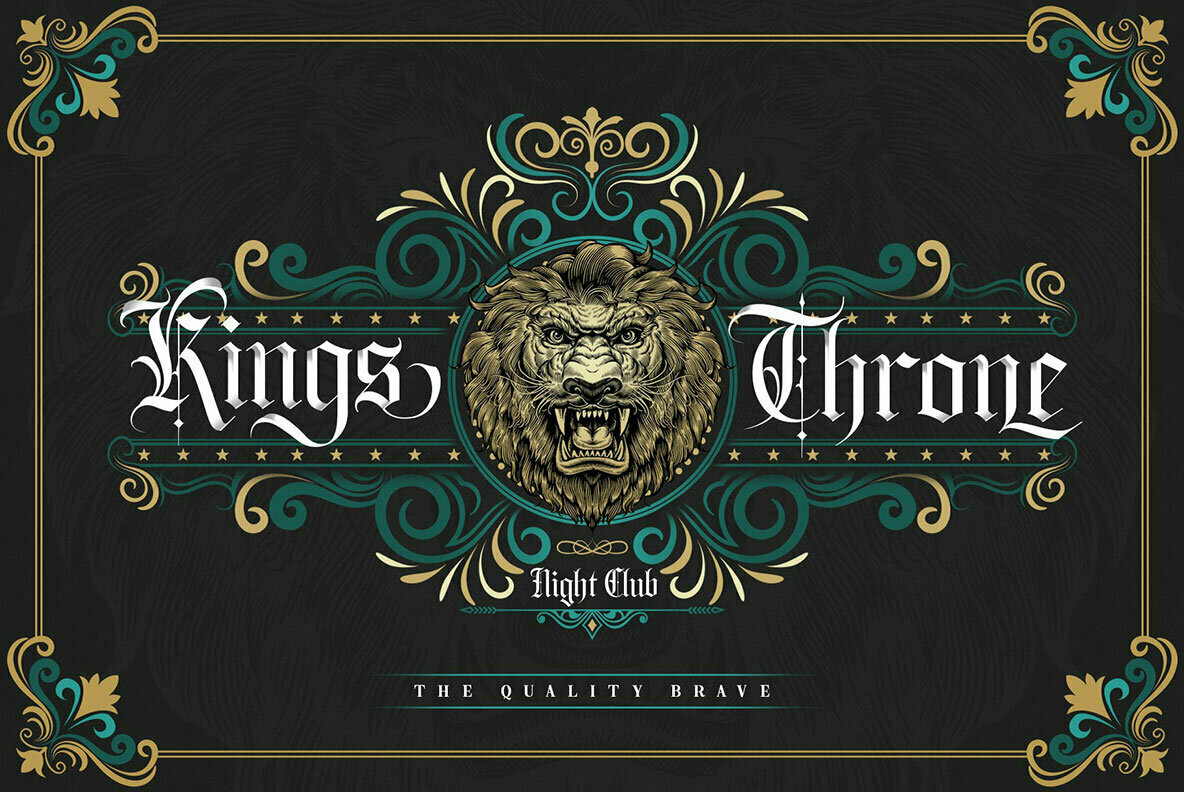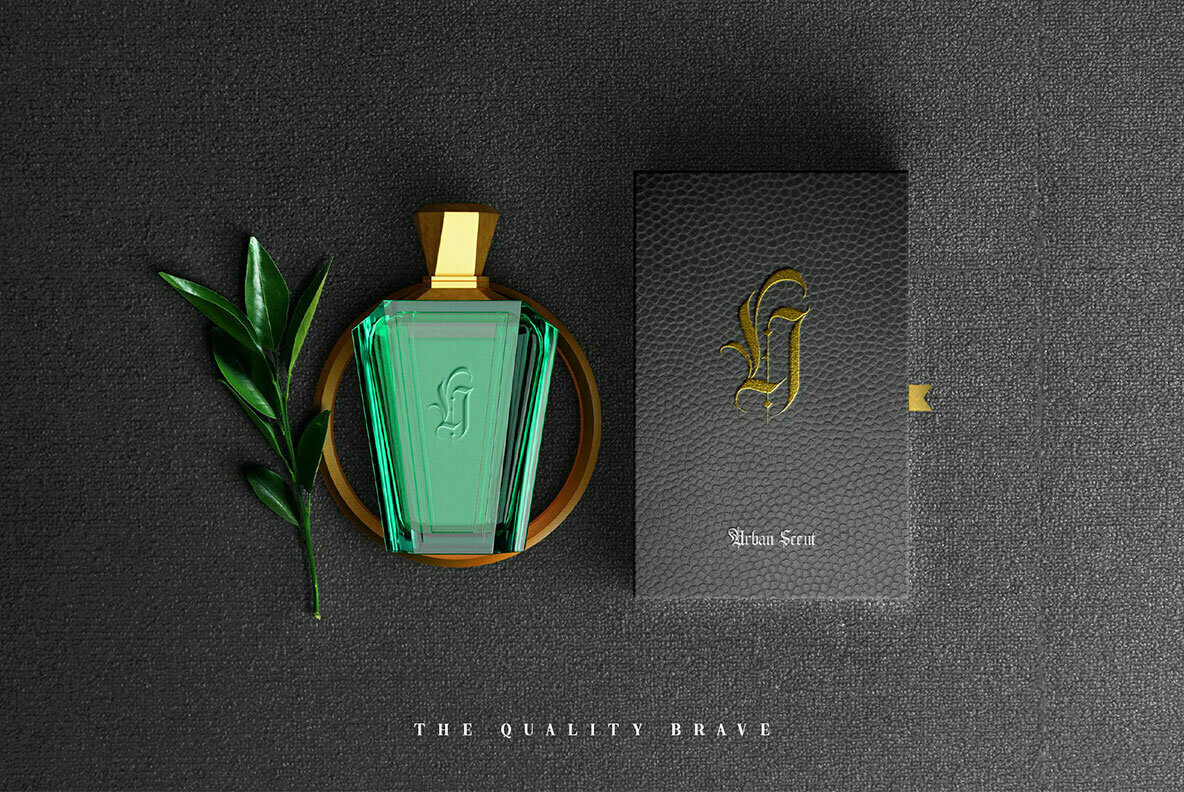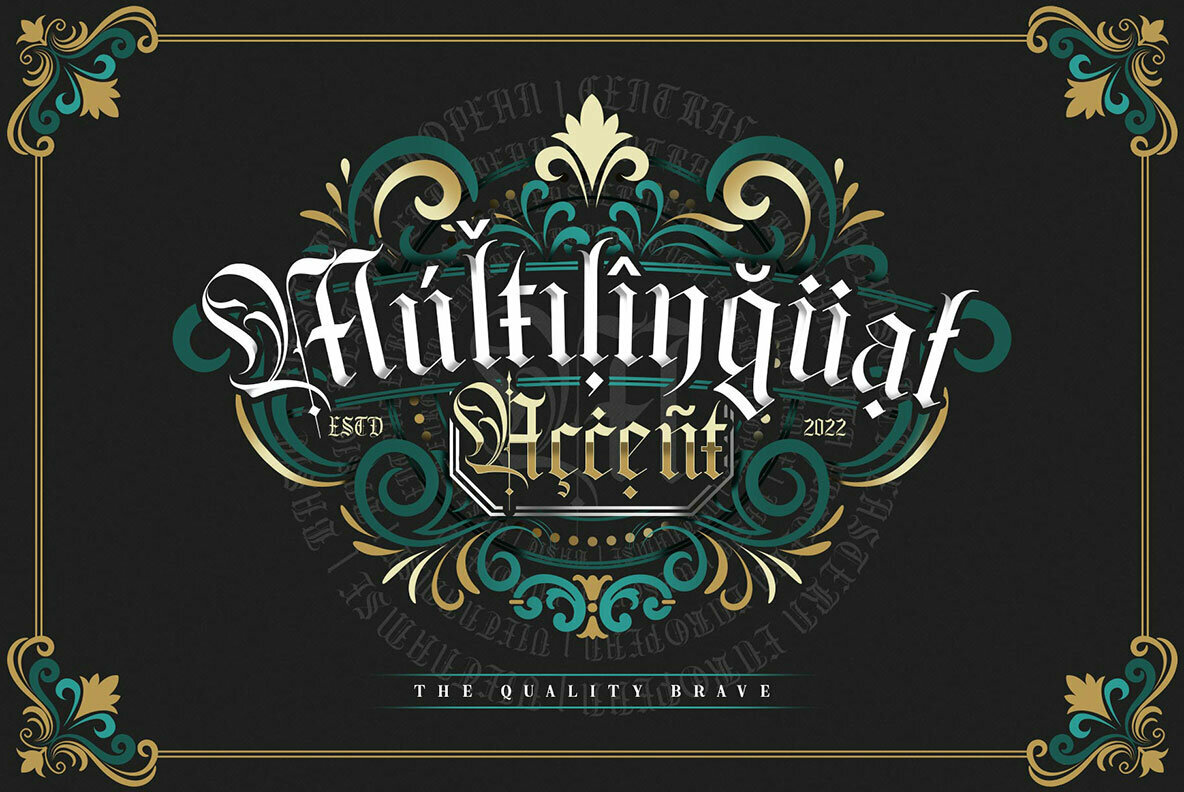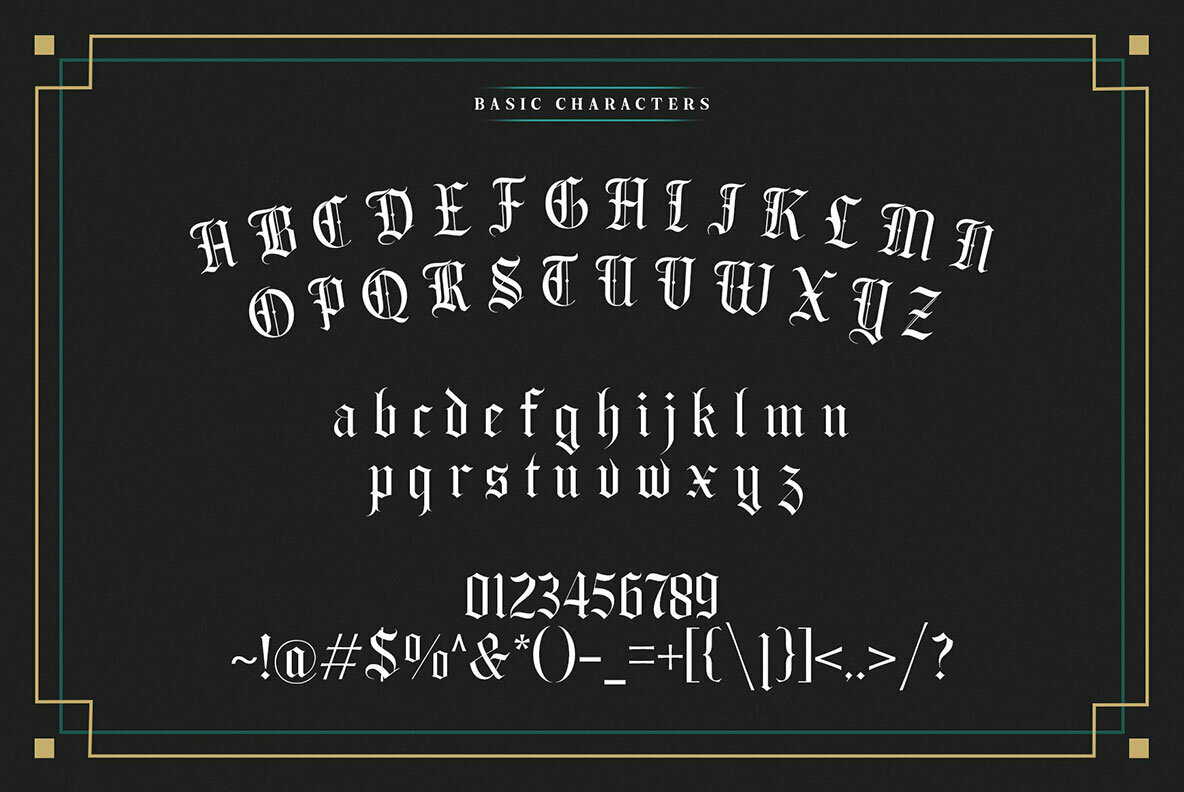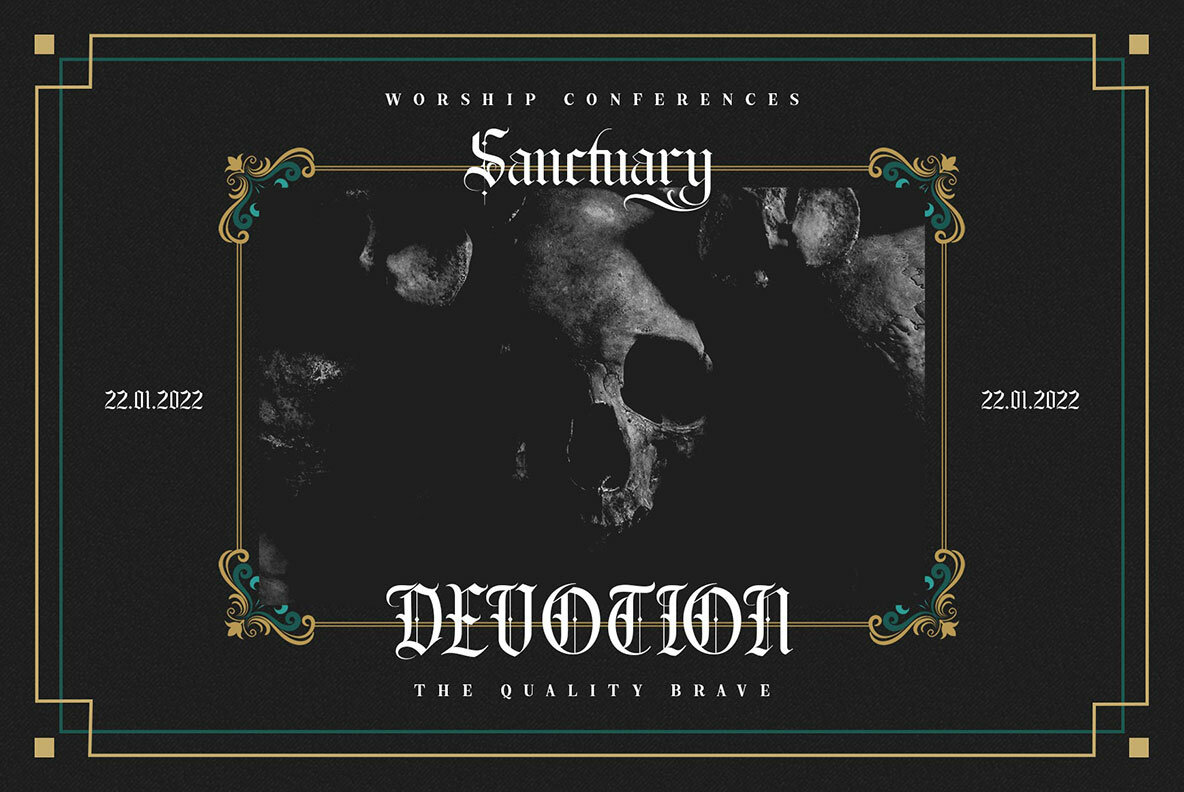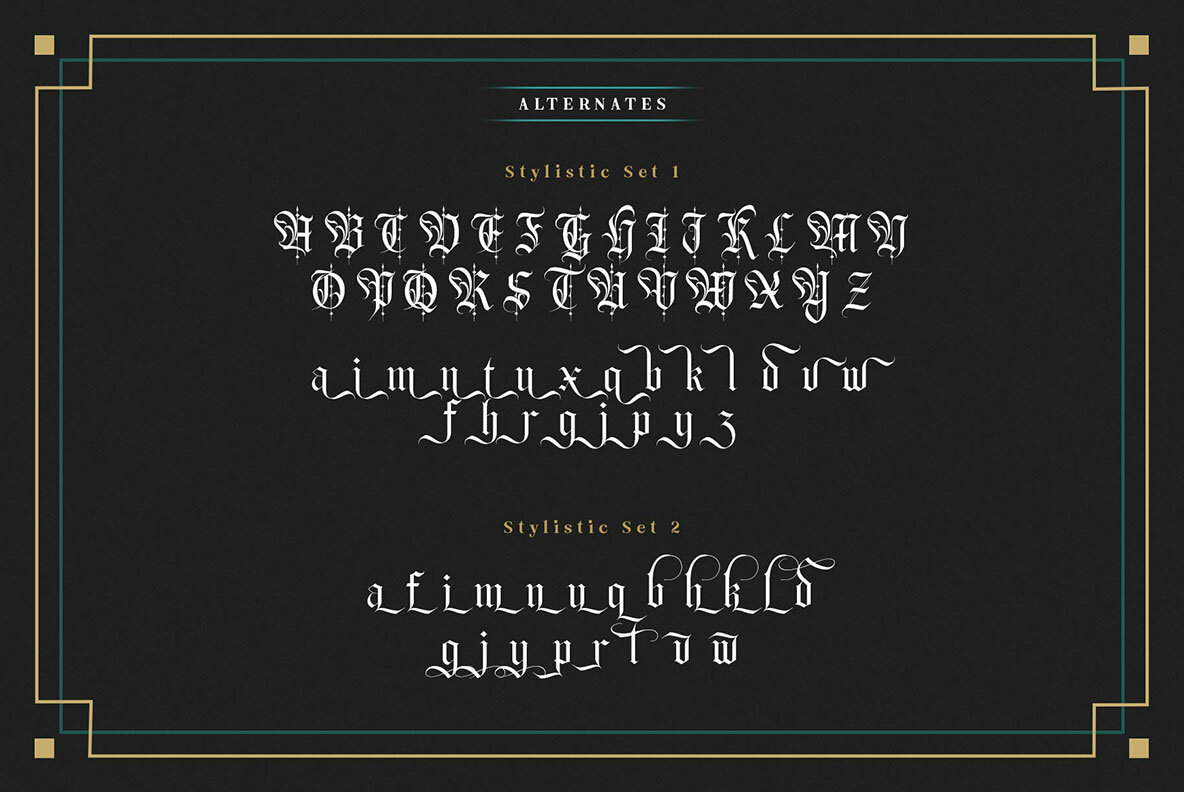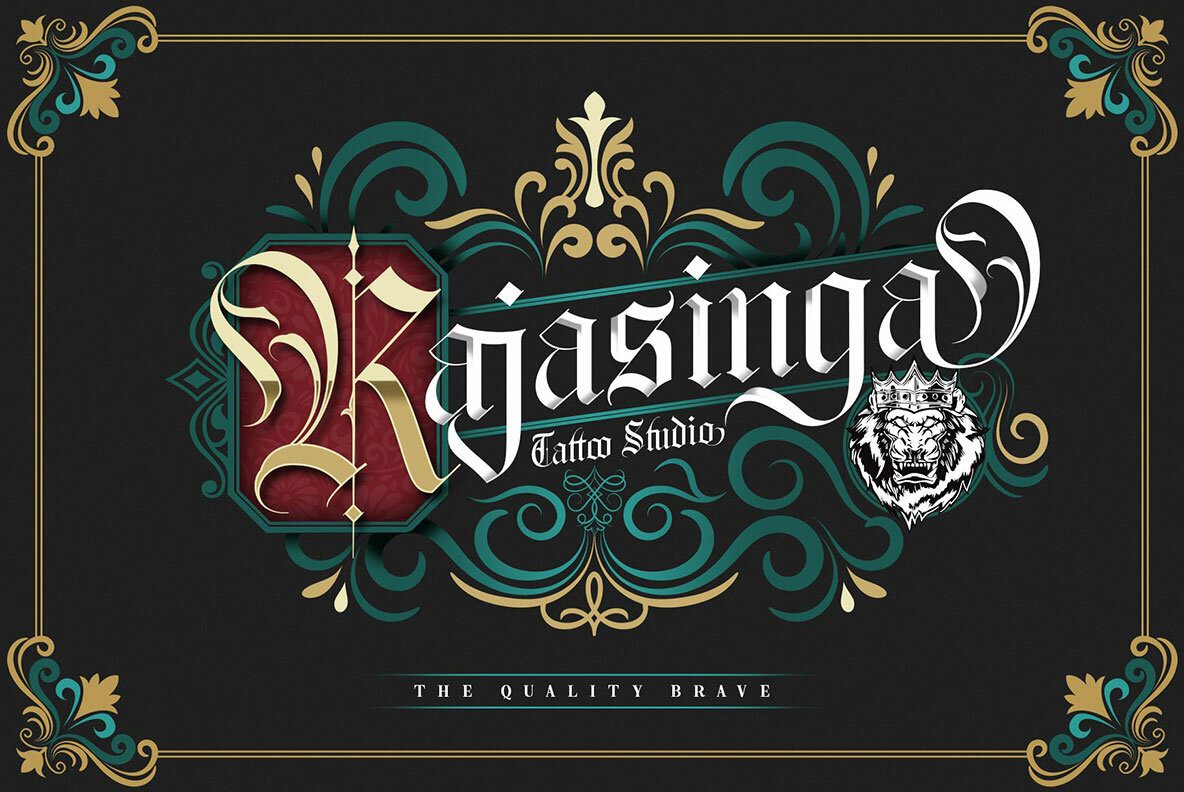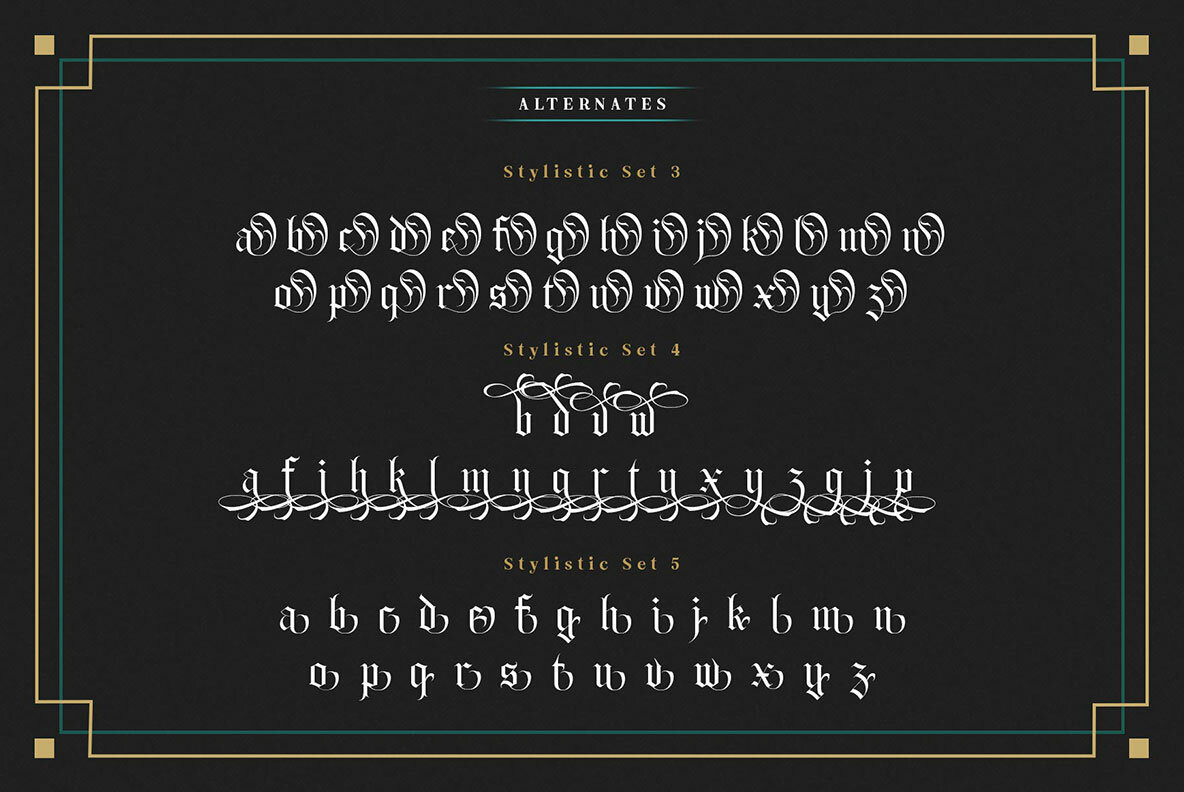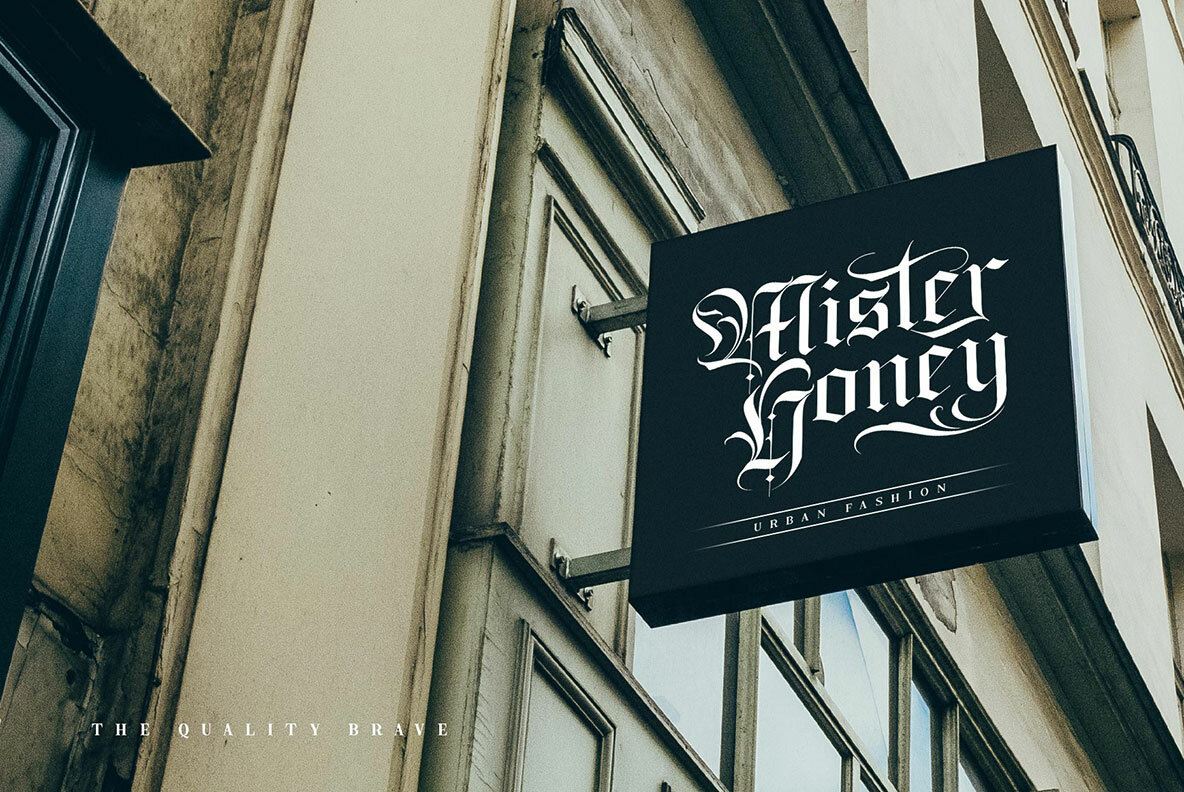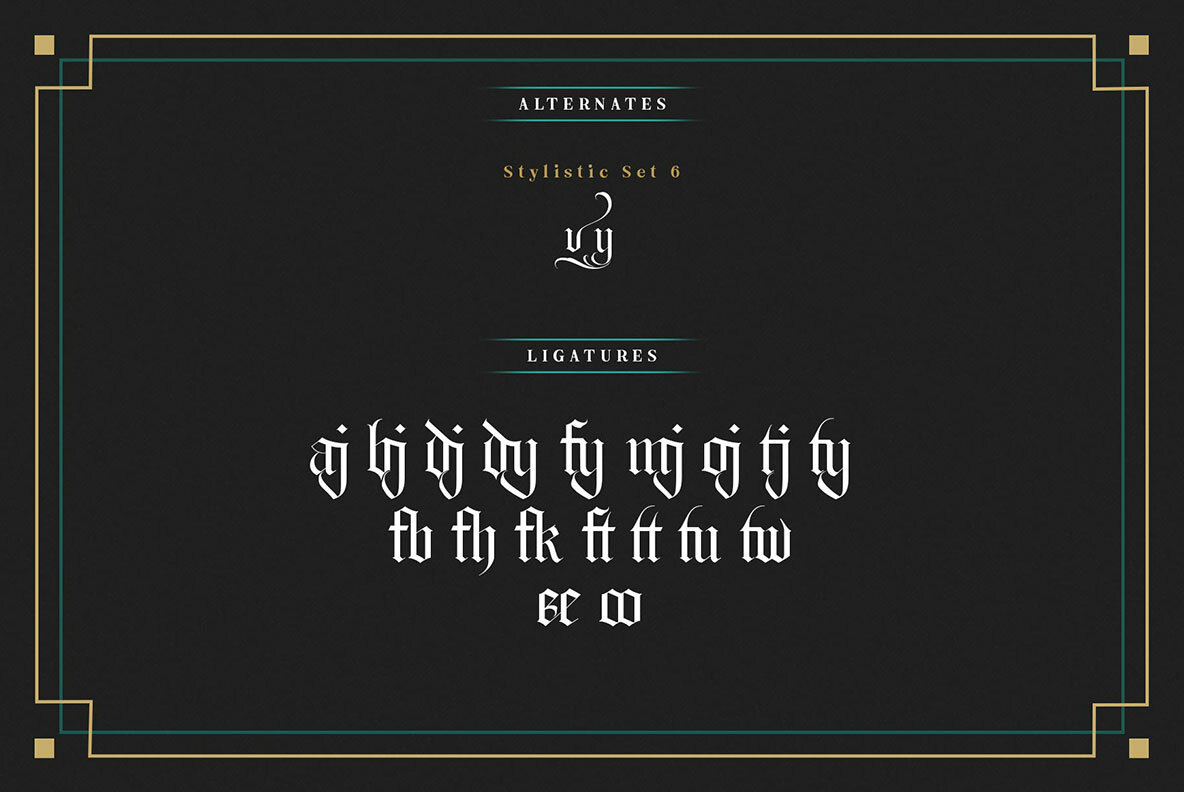
The Quality Brave Font
The Quality Brave Regular
Drawing inspiration from traditional Blackletter typefaces, The Quality Brave emerges with a contemporary twist, offering both strength and uniqueness. This font is enriched with alternative options, such as swashes, ligatures, and varied character alternatives, ensuring ease in crafting designs with robust or moody themes. Enhanced with multilingual character support, it provides versatility across numerous international languages. Features: Perfect for those looking to infuse a potent and striking aesthetic into their designs, The Quality Brave embodies both tradition and innovation.The Quality Brave: Bold Blackletter with Modern Flair